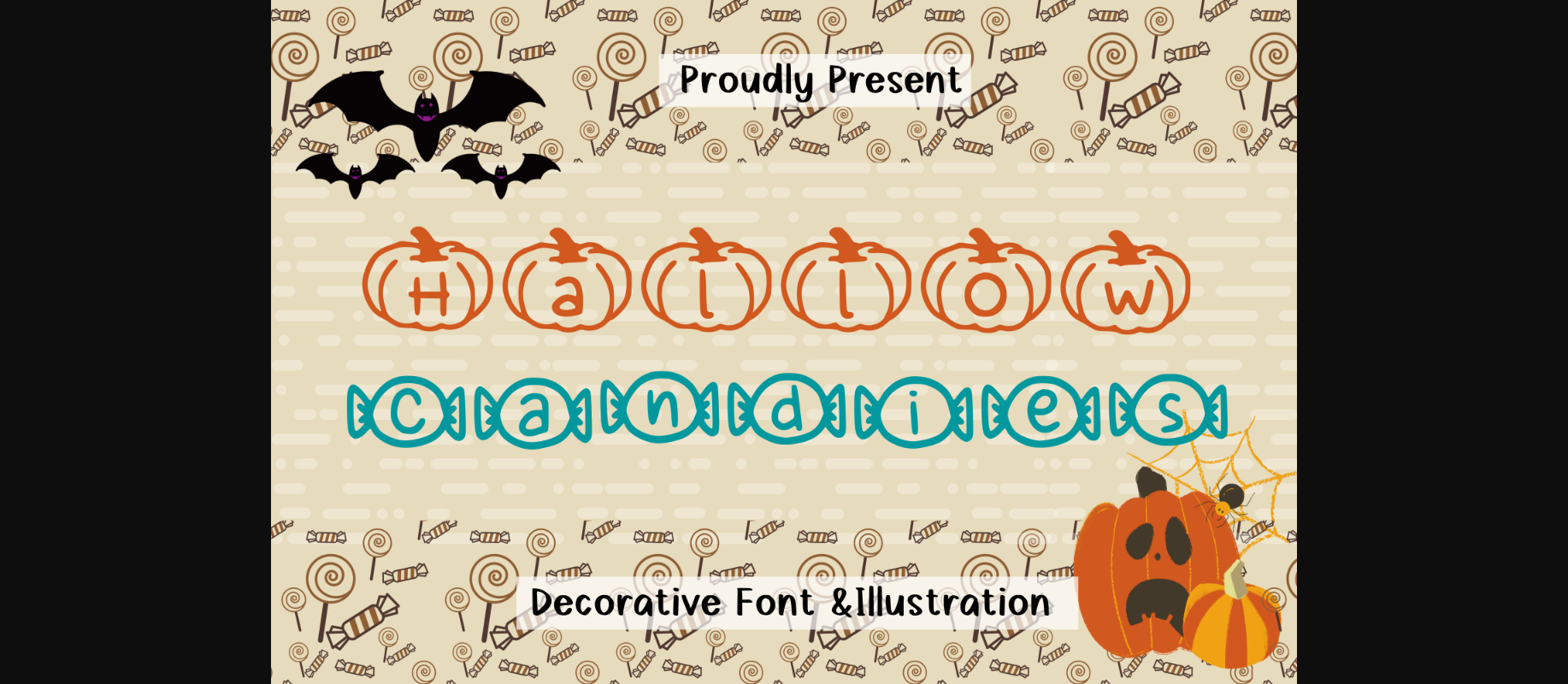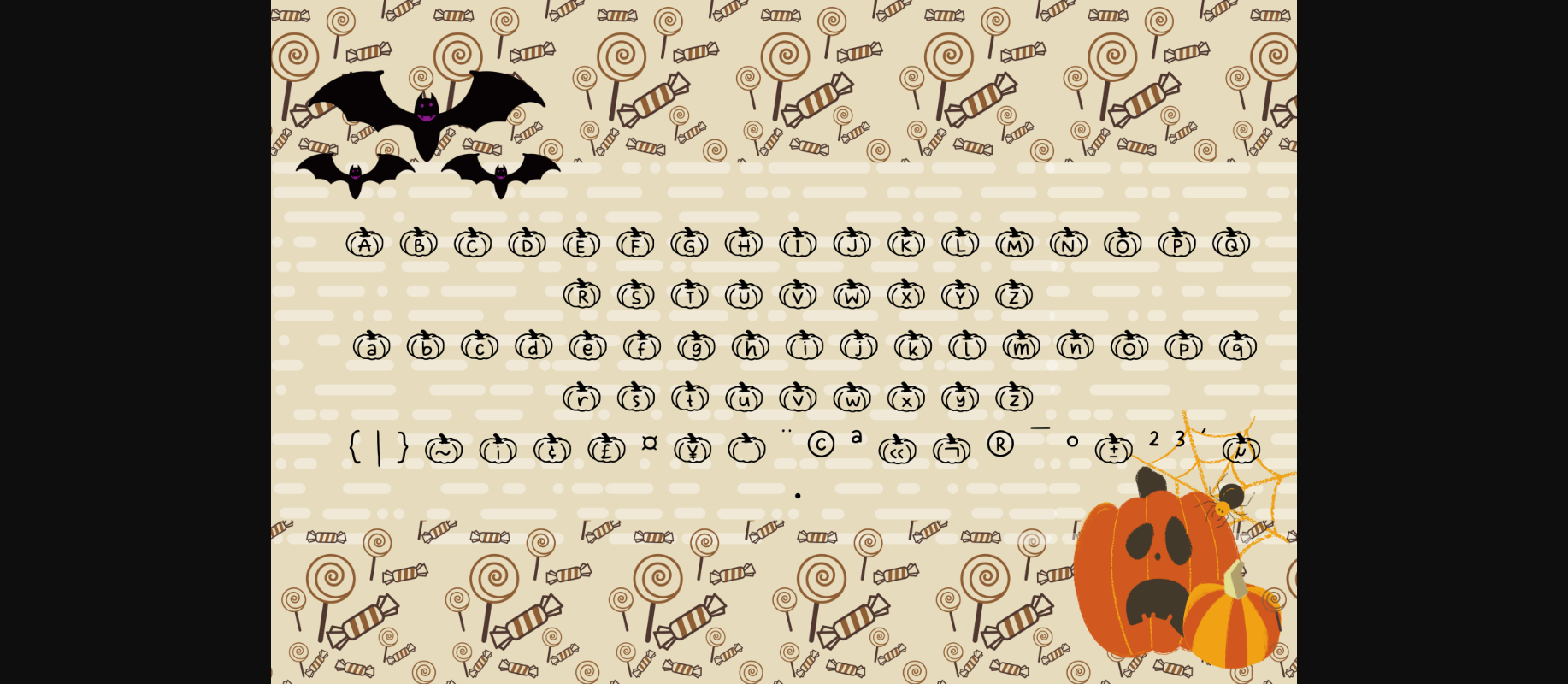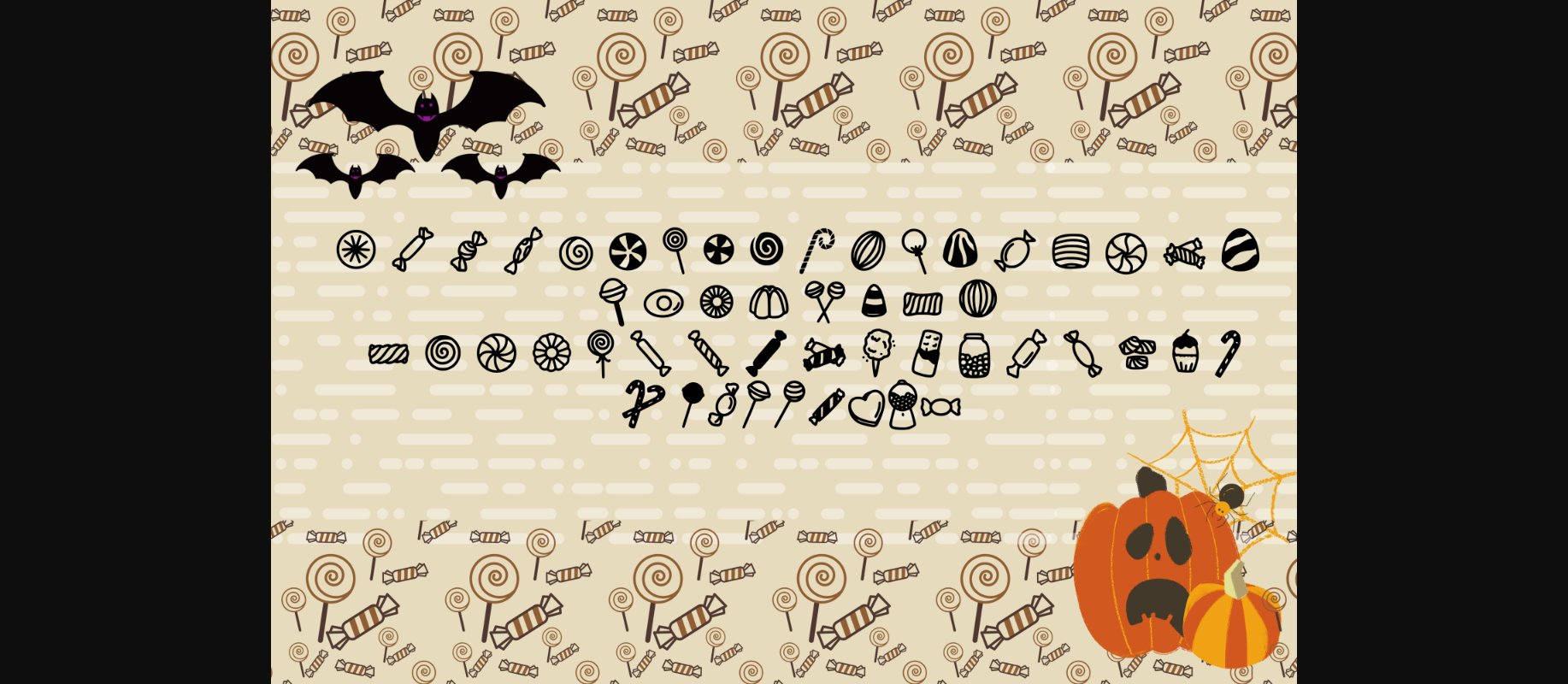
Hallow Candies Font
About Hallow Candies Font
Hallow Candies is an adorable and stylish duo font (decorative and dingbats). It will add an incredibly joyful touch to any of your beautiful Hallowing projects.